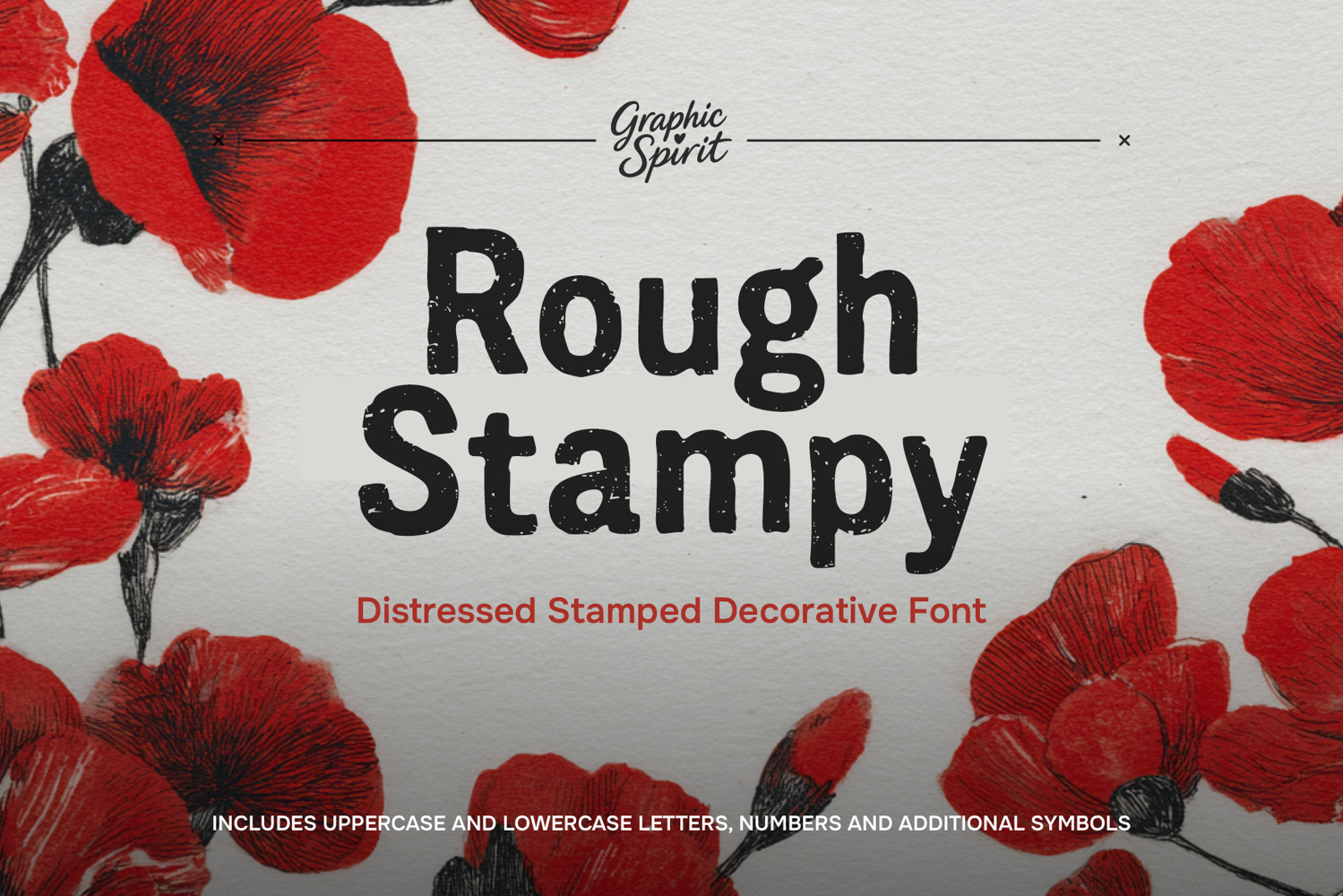
Rough Stampy Distressed Stamped Decorative Font
✨ Unlock the charm of handcrafted authenticity with our Rough Stampy Distressed font! This digital download delivers a rugged, textured look that mimics traditional stamping techniques, perfect for adding a touch of rustic warmth and organic character to your projects. Instantly elevate your designs with this uniquely imperfect typeface.